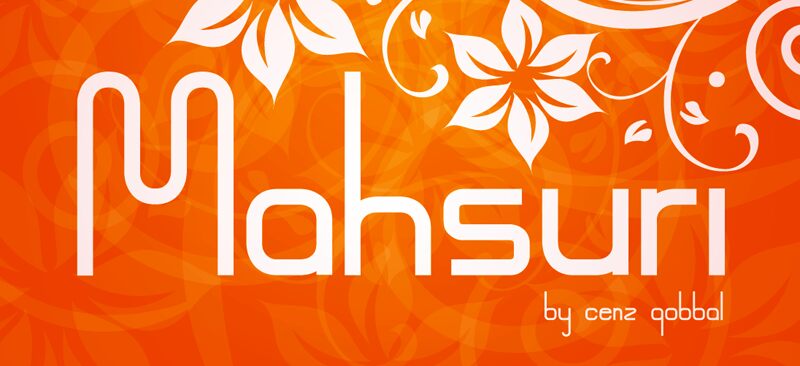
Mahsuri Italic, designed by Cenz Qobbal, is a free retro display font distinguished by extremely tall, narrow letters, light strokes, and a pronounced forward slant. Rounded bends soften its taut, streamlined drawing.
Designers working in retro-futurist fashion, electronic music, or nightlife culture can use the compressed silhouette for posters, album covers, and event graphics with a sleek period accent. In fashion branding or cosmetic packaging, the repeated vertical strokes can turn a name into a striped, logo-like emblem, making the lettering part of the product image rather than a neutral label.